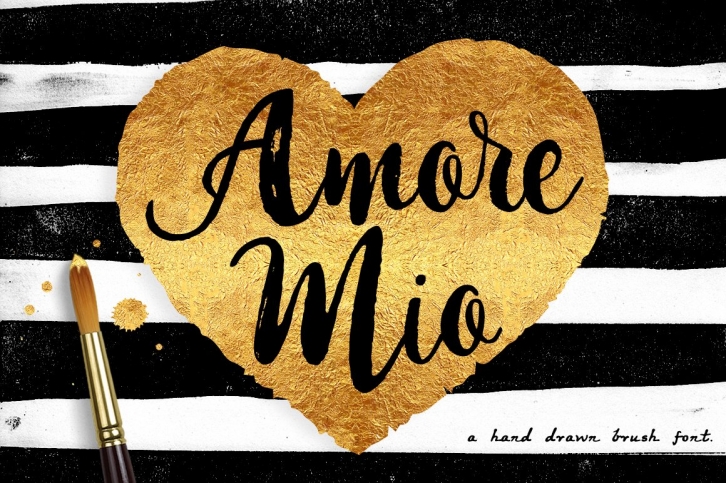
Amore Mio Brush FONT Download
Amore Mio Brush Font Download
Amore Mio Font is a bold brush font full of amore because it was hand painted and carefully designed to look super pretty.
• Uppercase and lowercase, numbers, puntuaction and currency.
• Supports international characters.